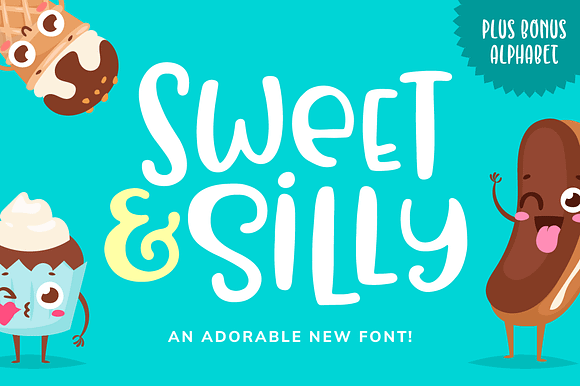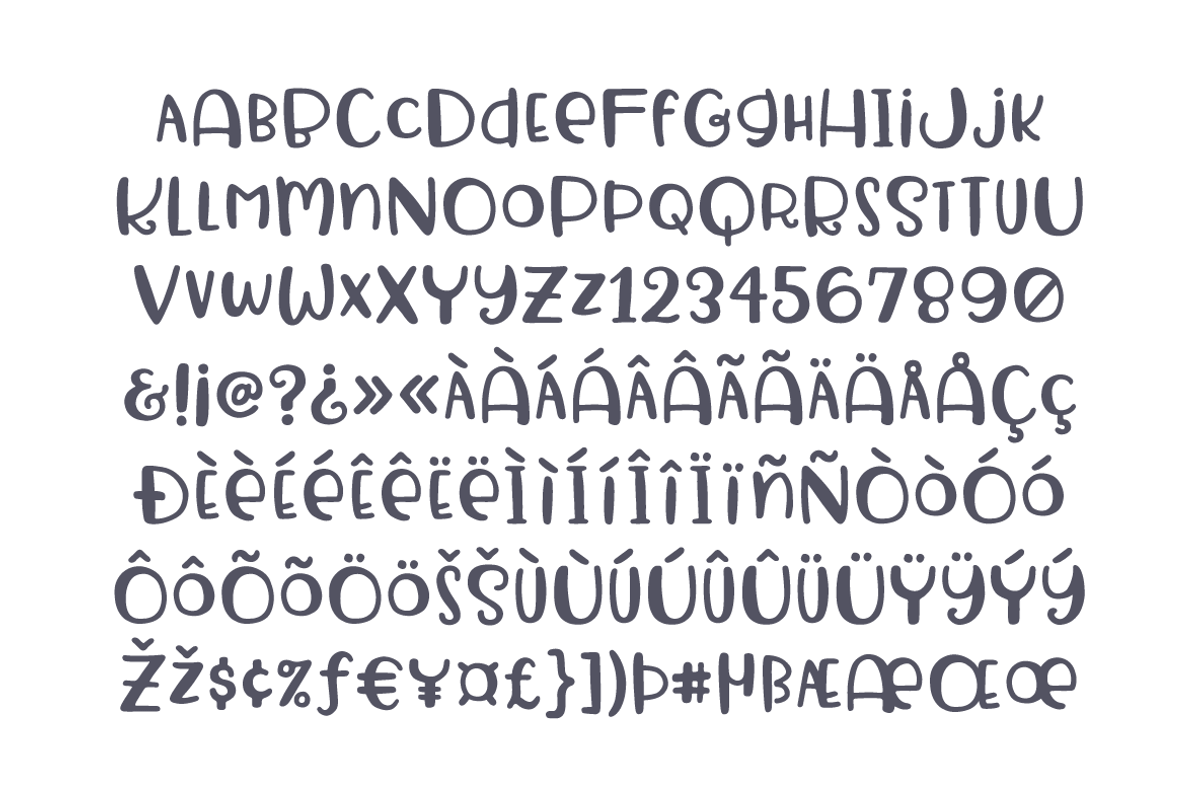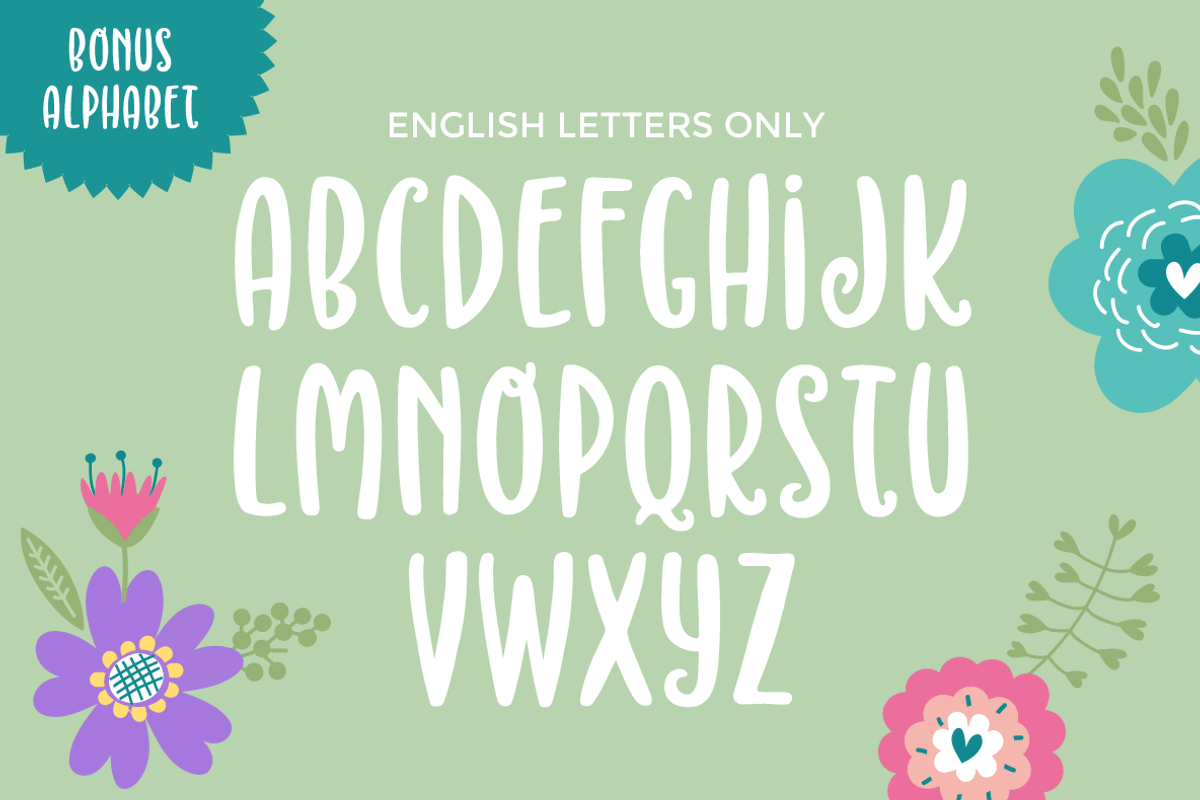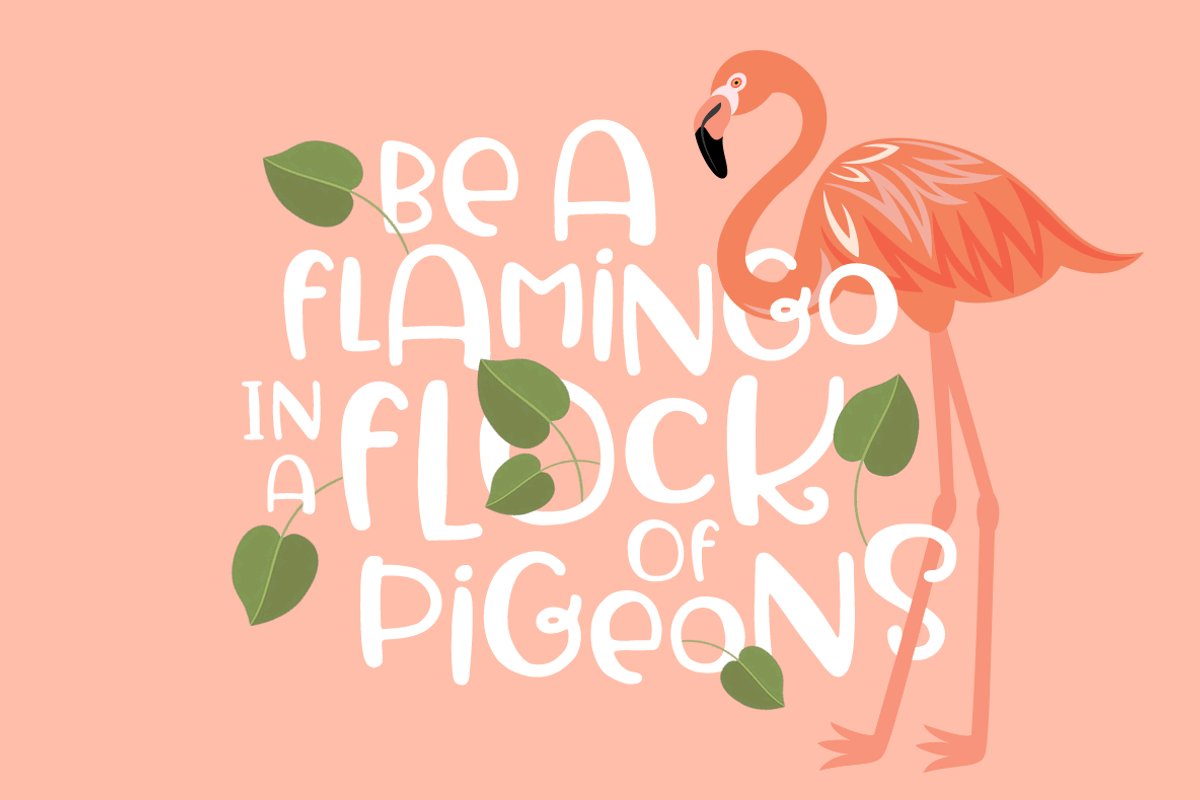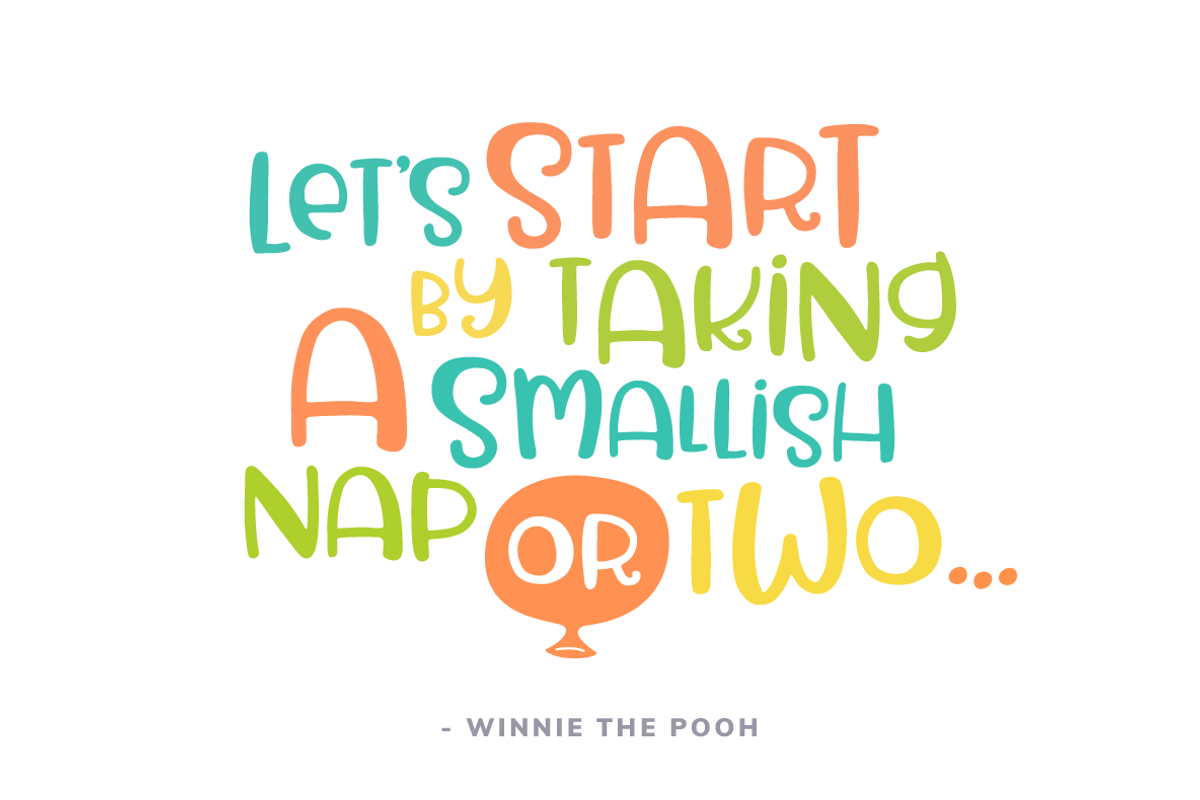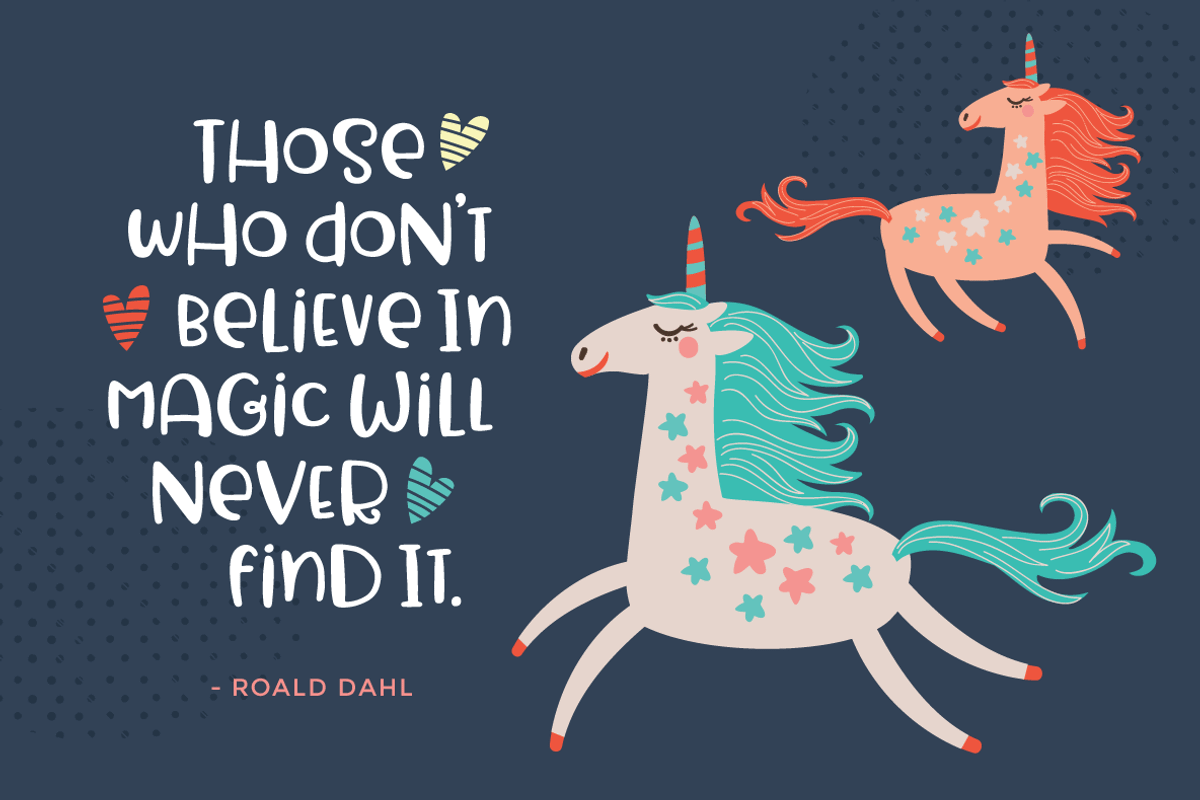
Sweet & Silly Font
Introducing: Sweet & Silly! An adorable font that will bring a smile to your face every time you use it. Included is a bonus exclusive alphabet (english letters only), just for fun!